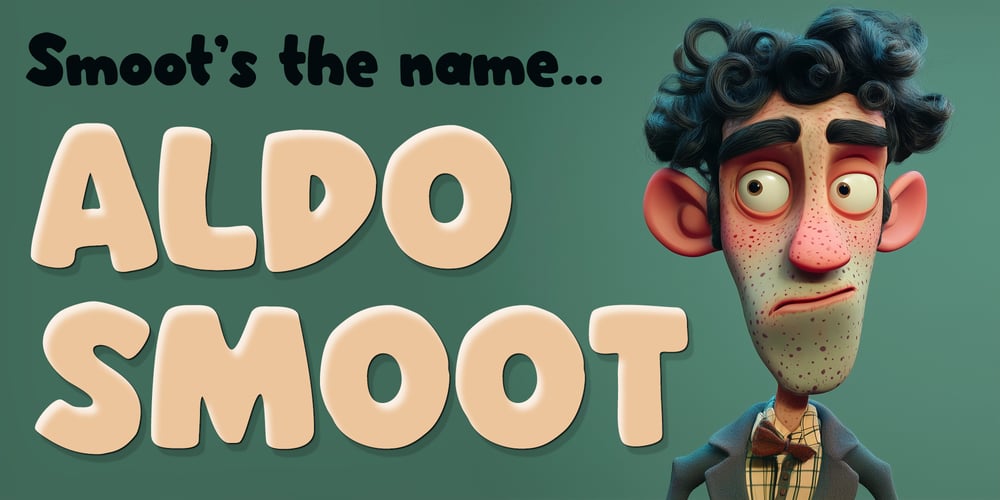
Aldo Smoot
Aldo Smoot font
Aldo Smoot Font Family was designed by Brian J. Bonislawsky, Dave Cohen and published by One Eyed Squid. Aldo Smoot contains 1 styles and family package options. Smoot’s the name…Aldo Smoot.I’m a bit awkward, but I’m soft and cuddly when you get to know me better. I’m unapologetically the type that says things like “Gosh Darnit”, “Shucks”, and Golly Gee Whittakers!” because I have an aversion to curse words. Well aren’t we a pair! I feel like we get along so well already. So what are you waiting for?(Aldo Smoot contains an extended Latin character set with added Vietnamese support.)